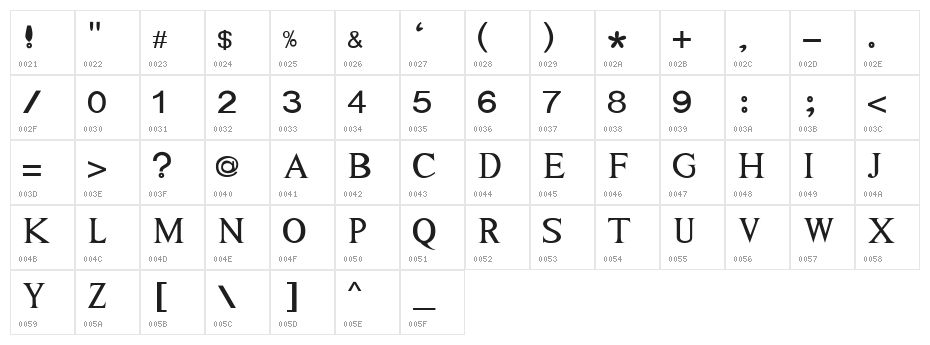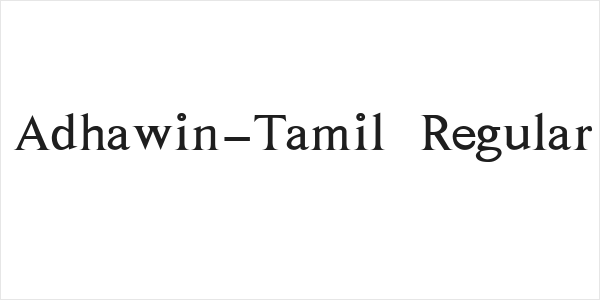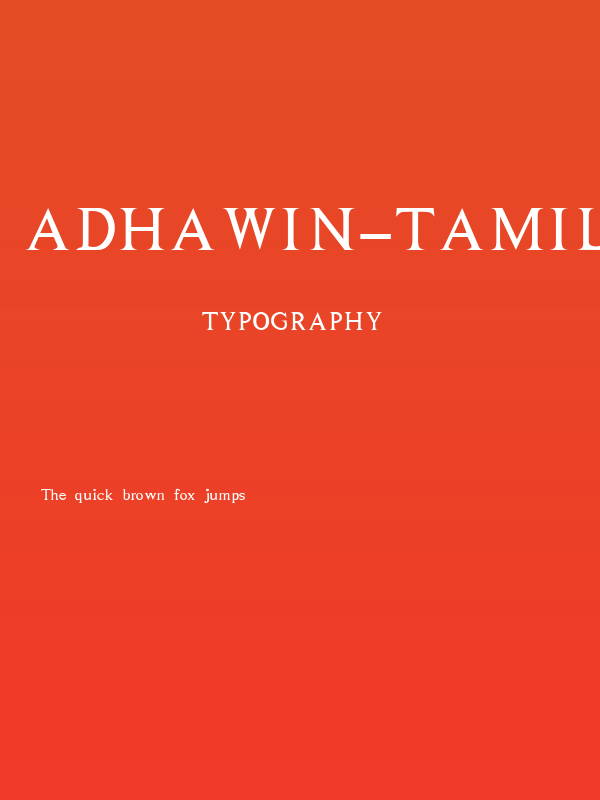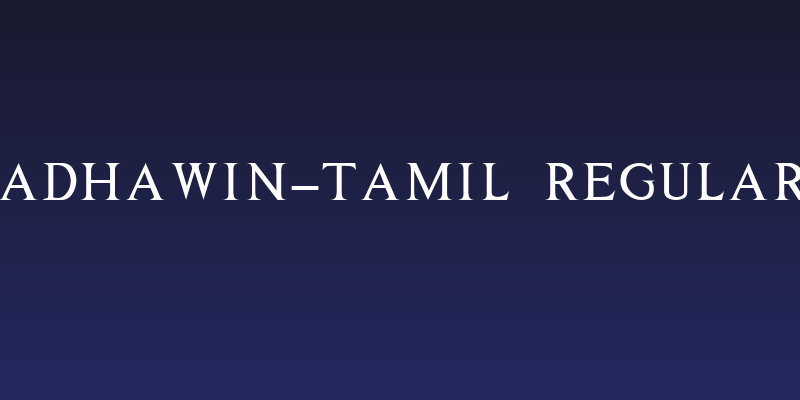
Adhawin-Tamil Regular Font
Adhawin-Tamil Regular Description
This font exhibits a classic serif style with elegant and refined strokes. The characters are well-balanced with a moderate contrast between thick and thin lines, giving it a sophisticated appearance. The uppercase letters are bold and commanding, while the lowercase letters maintain a graceful flow. The numerals are clear and distinct, making them easily readable. Special characters are designed with the same attention to detail, ensuring consistency across the font. This typeface is versatile, suitable for both formal and creative applications.